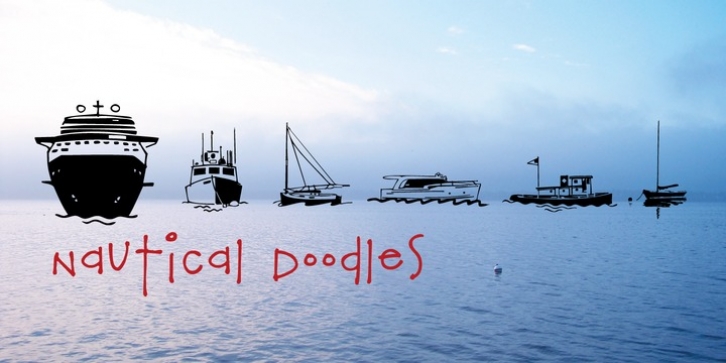
Nautical Doodles was designed by Rae Kaiser and published by Outside the Line. Nautical Doodles contains 1 style.
Sail the seas with Nautical Doodles. This seaworthy font has 32 illustrations of water craft, anchors, star, compass, flags, whale, shark, birds, starfish, seahorse, rope etc. Even a mermaid... and the scripted word Ahoy!